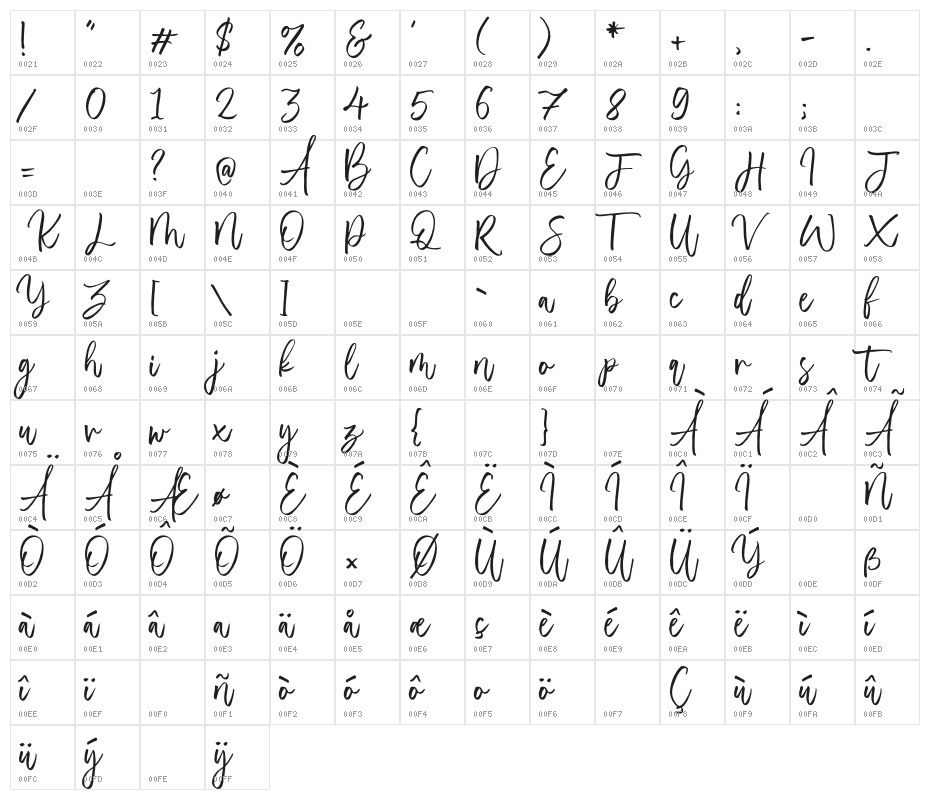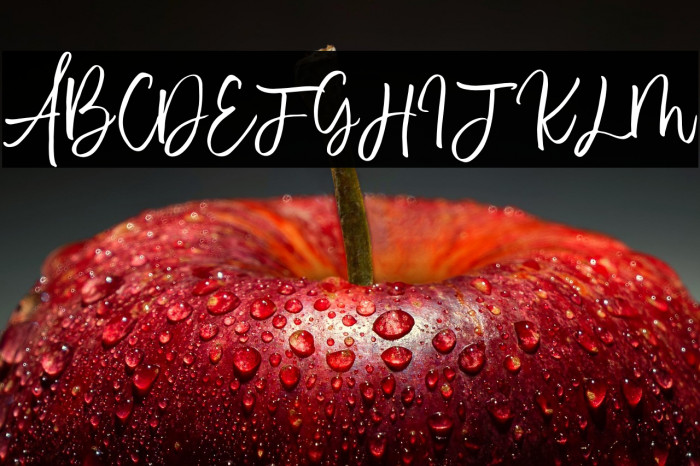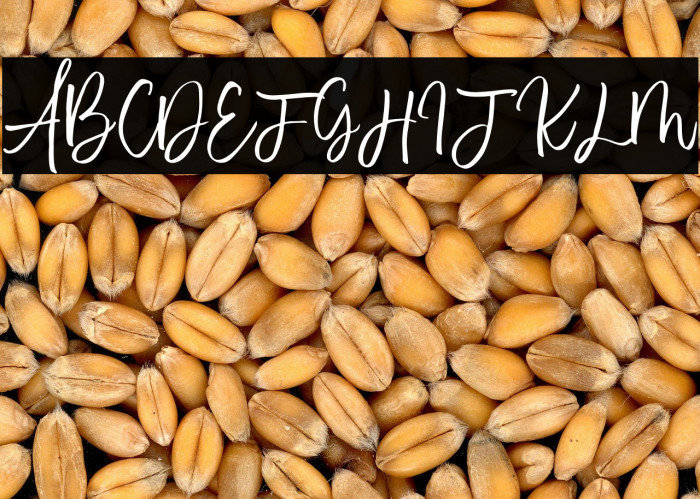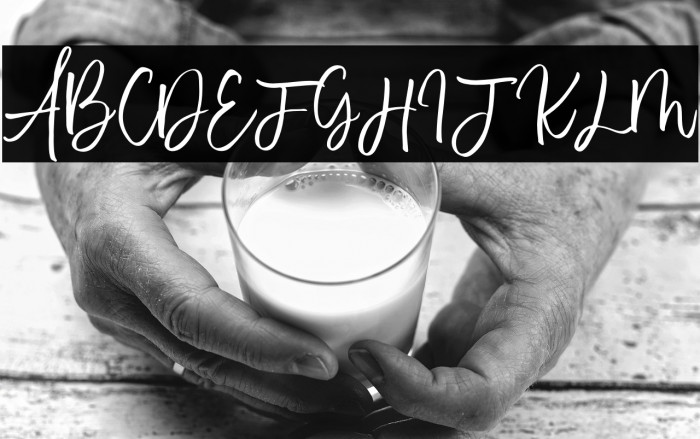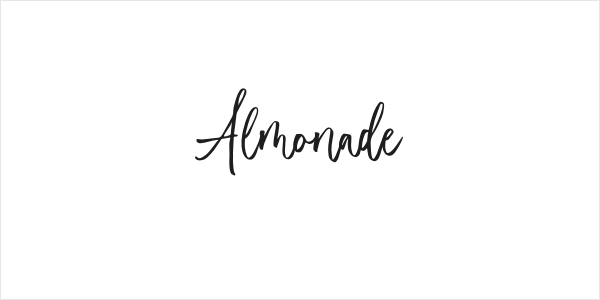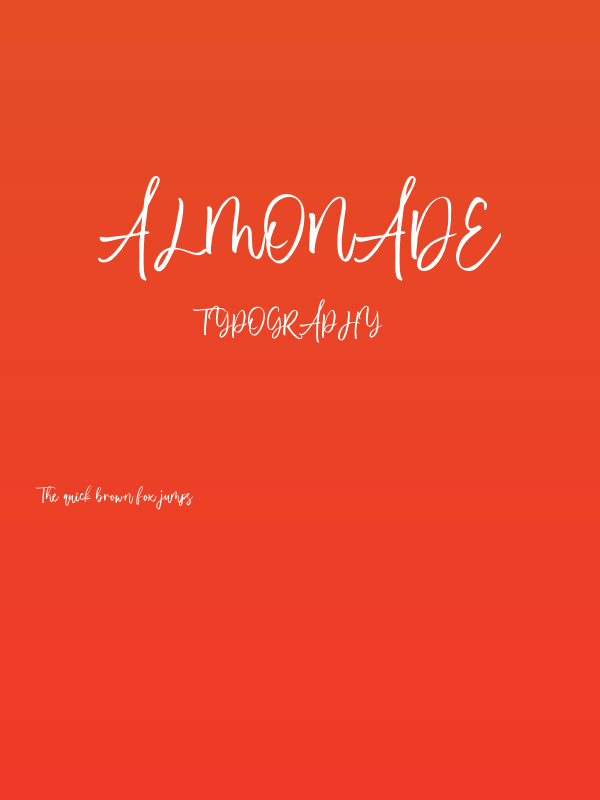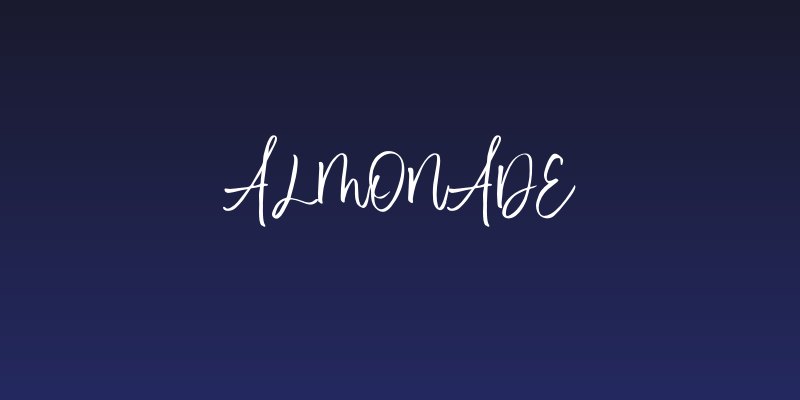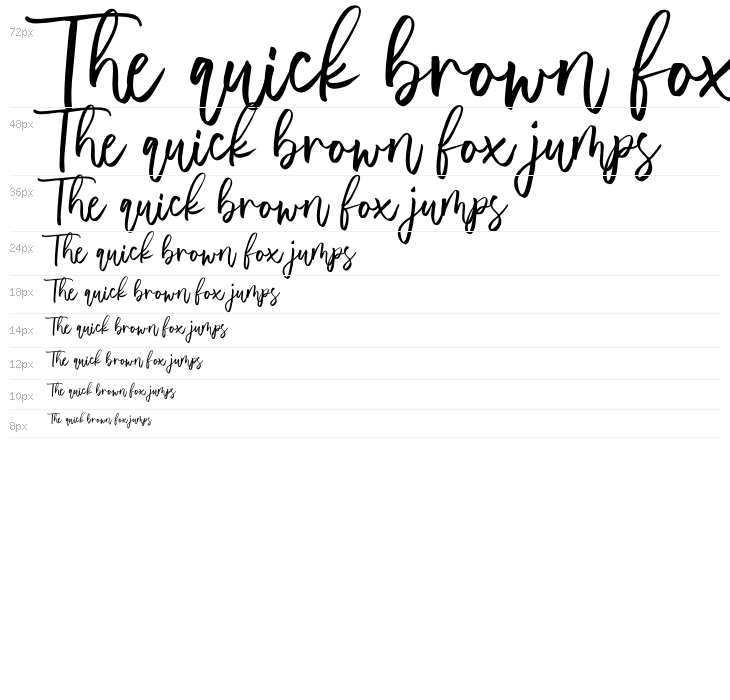
Almonade Font
Almonade Description
This font exudes a lively and dynamic energy with its fluid, cursive style. The letters are crafted with a natural, handwritten appearance, featuring smooth curves and varying stroke widths that add a personal touch. The uppercase letters maintain a consistent height, while the lowercase letters exhibit playful loops and flourishes. Numbers and special characters are designed to match the overall aesthetic, ensuring a cohesive look. The font's casual elegance makes it suitable for creative projects that require a personal or artistic flair.
| Use Case | Logos, Invitations, Greeting Cards |
| Proposed Projects | Ideal for invitations, greeting cards, branding, and creative projects that require a personal touch. |